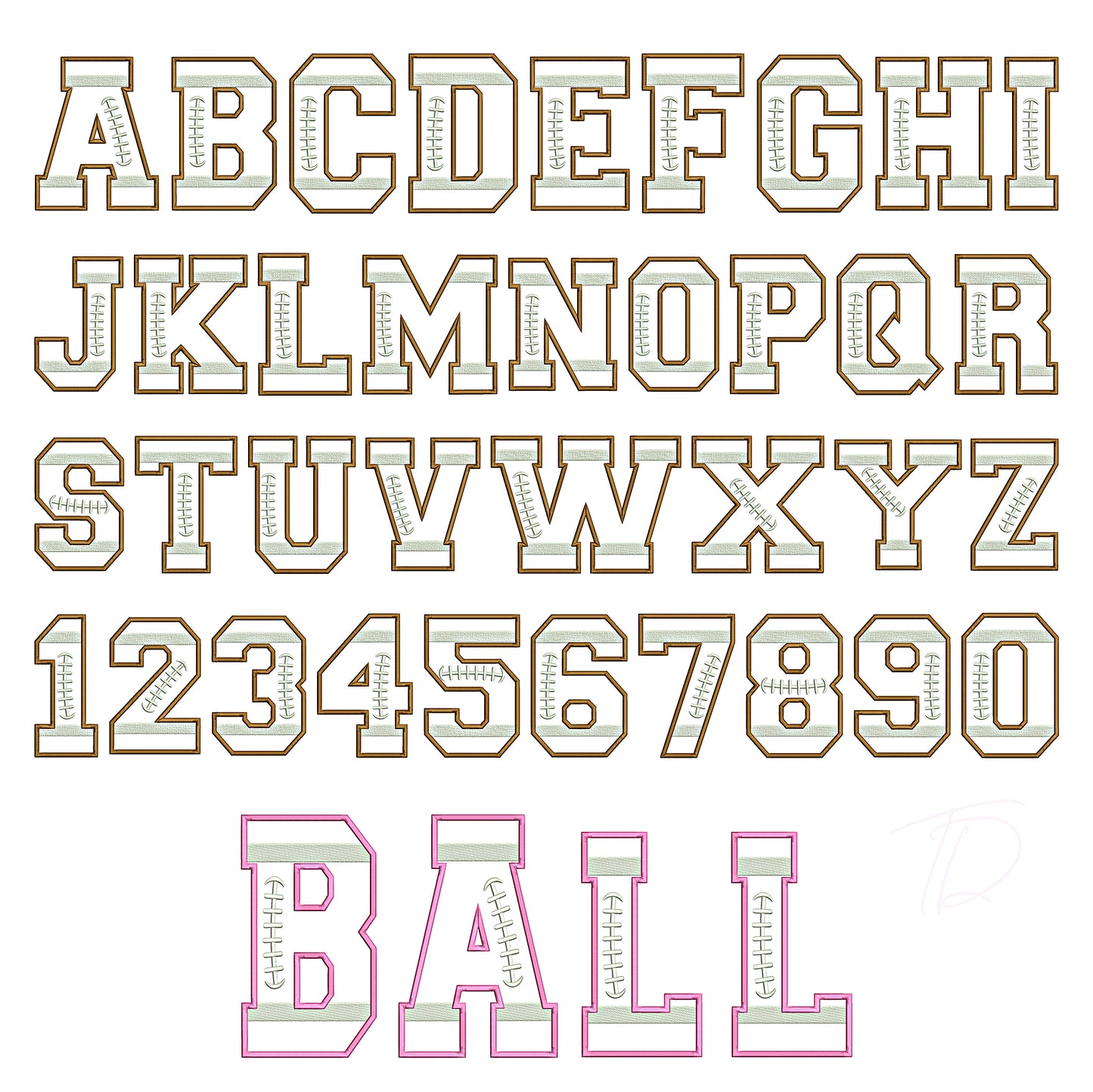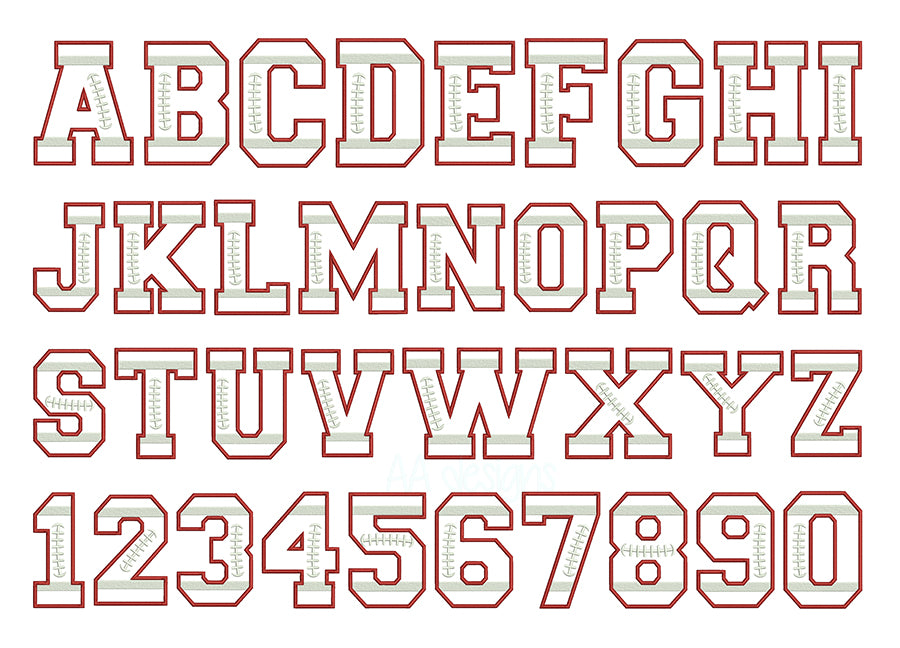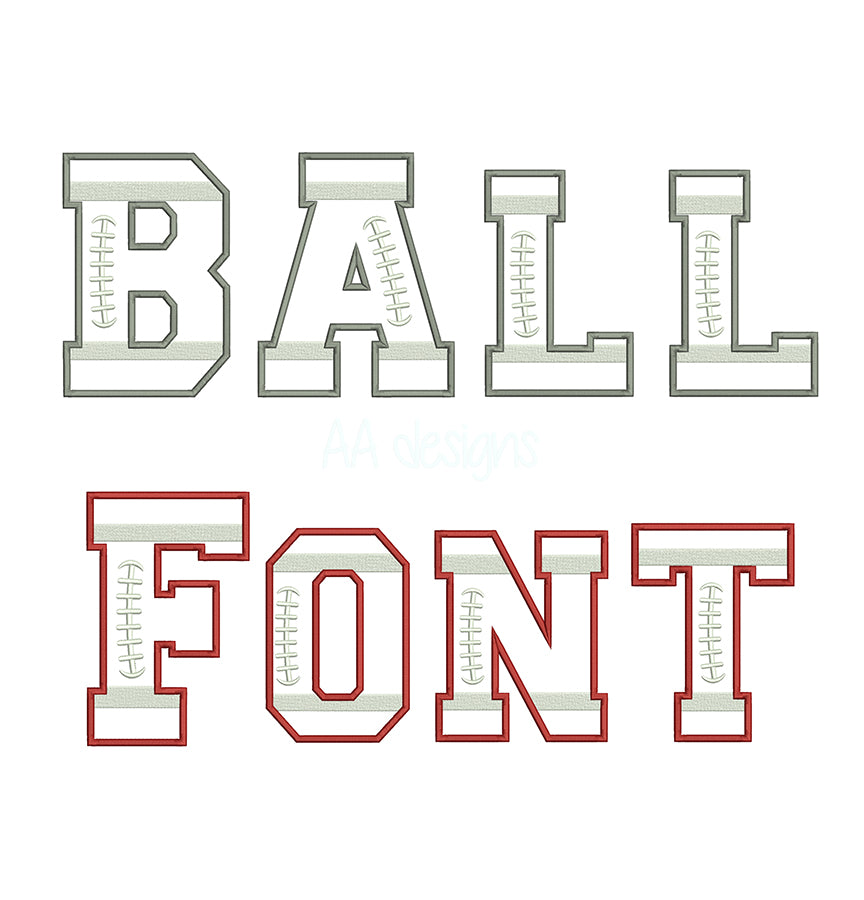
Football Applique Embroidery Font
Go long with our Football Applique Embroidery Font — a rugged, bold alphabet built for applique machine embroidery. The layered fabric construction gives each letter a strong, dimensional look that's perfect for team apparel, fan gear, and personalized sports gifts.
- Applique-style construction for a bold, textured finish with lower stitch count
- Powerful athletic letterforms inspired by classic American football jersey typography
Whether you're outfitting a Friday night football squad, creating custom fan merchandise, or crafting the ultimate tailgate gift, this applique font delivers touchdown-worthy results every time.